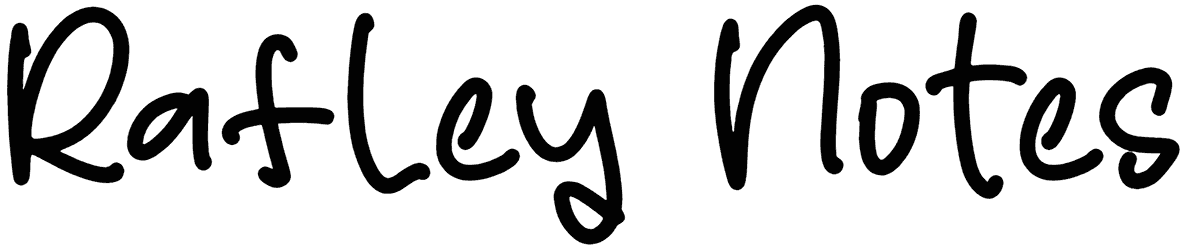
Rafley Notes Font
There’s no way you can call the crooked letters of Rafley Notes perfect or good-looking, but you should admit they feel so nice and relatable. Imagine writing down your words rapidly on a notepad or something. Isn’t it exactly how it would have looked?
This scribble font is right up your alley if you’re looking for that realistic touch of careless handwriting. With a scrapbook font like this, you can consider your next T-shirts, school games, etc., a downright success.